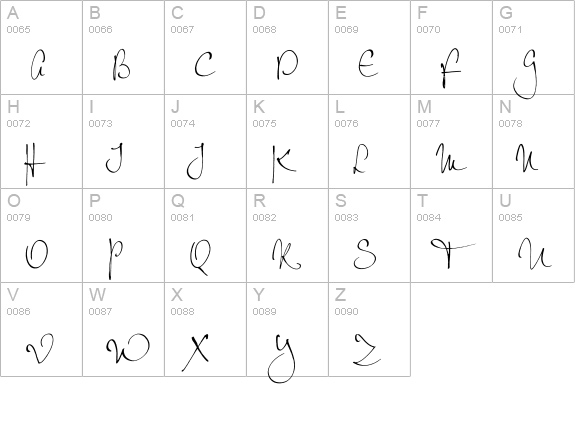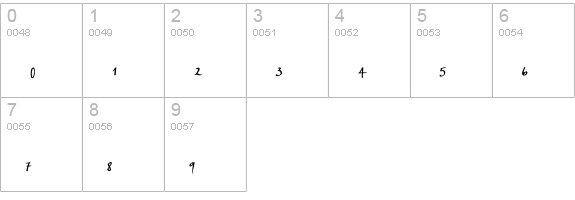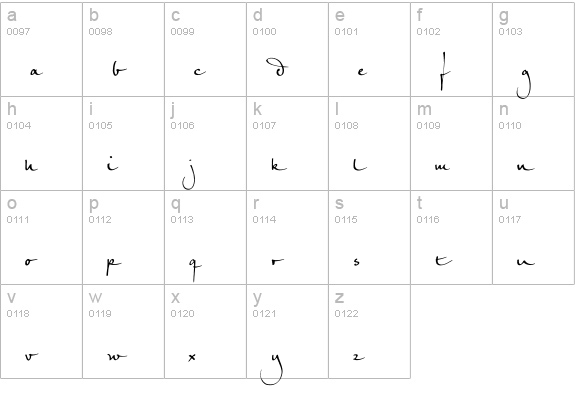
PetraScriptEF-Regular Font Details
PetraScriptEF-Regular is the standard, neutral variant in the PetraScriptEF typeface family \xE2\x80\x94 well suited to general body text, paragraphs, and standard typographic work.
PetraScriptEF-Regular is a stunning and elegant font that is sure to capture attention with its unique and intricate design. This font exudes sophistication and grace, making it perfect for a wide range of creative projects. Whether you're designing logos, invitations, or even website headers, PetraScriptEF-Regular is sure to add a touch of class to your work. One of the greatest features of PetraScriptEF-Regular is that it is available for free. Yes, you read that right - this beautiful font can be yours without spending a dime. Thanks to FontsMarket.com, you can freely download and enjoy the beauty of PetraScriptEF-Regular. It's a fantastic opportunity to enhance your design projects without breaking the bank. The versatility of PetraScriptEF-Regular is truly remarkable. It can effortlessly adapt to any style or theme, allowing you to experiment and create unique designs that stand out from the crowd. Its clean lines and intricate details come together to create a timeless and eye-catching font that is sure to leave a lasting impression. Whether you're a professional designer or a passionate hobbyist, PetraScriptEF-Regular is a must-have addition to your font collection. Its versatility, elegance, and availability make it a font worth exploring and utilizing in all your creative endeavors. So why wait? Head over to FontsMarket.com and freely download PetraScriptEF-Regular today to take your designs to new heights.